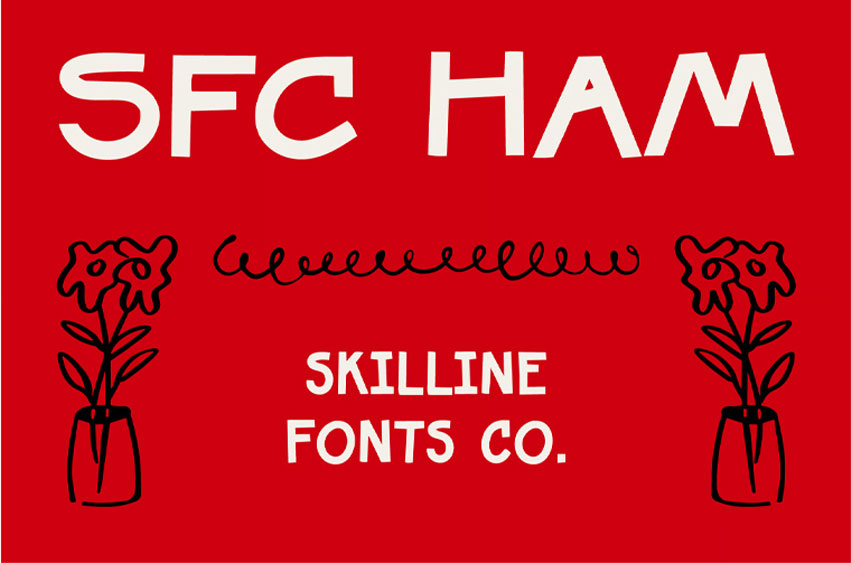
Ham Font
Ham Font is a playful handcrafted display typeface inspired by retro grocery signage, vintage market packaging, and expressive hand-painted lettering. Featuring quirky proportions, organic curves, and imperfect character shapes, it delivers a bold nostalgic feel with raw handmade charm and energetic personality.
Designed with an all-caps structure and distinctive irregular details, Ham captures a fun retro aesthetic with authentic handcrafted character.